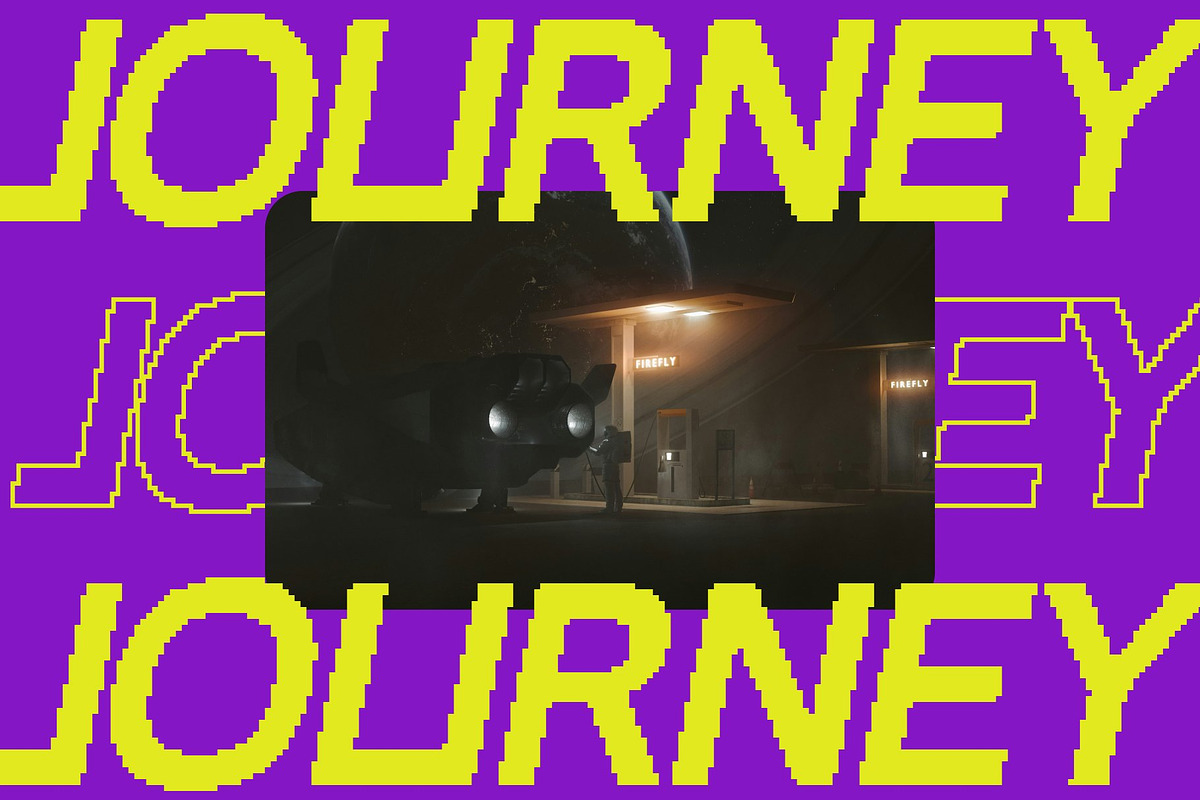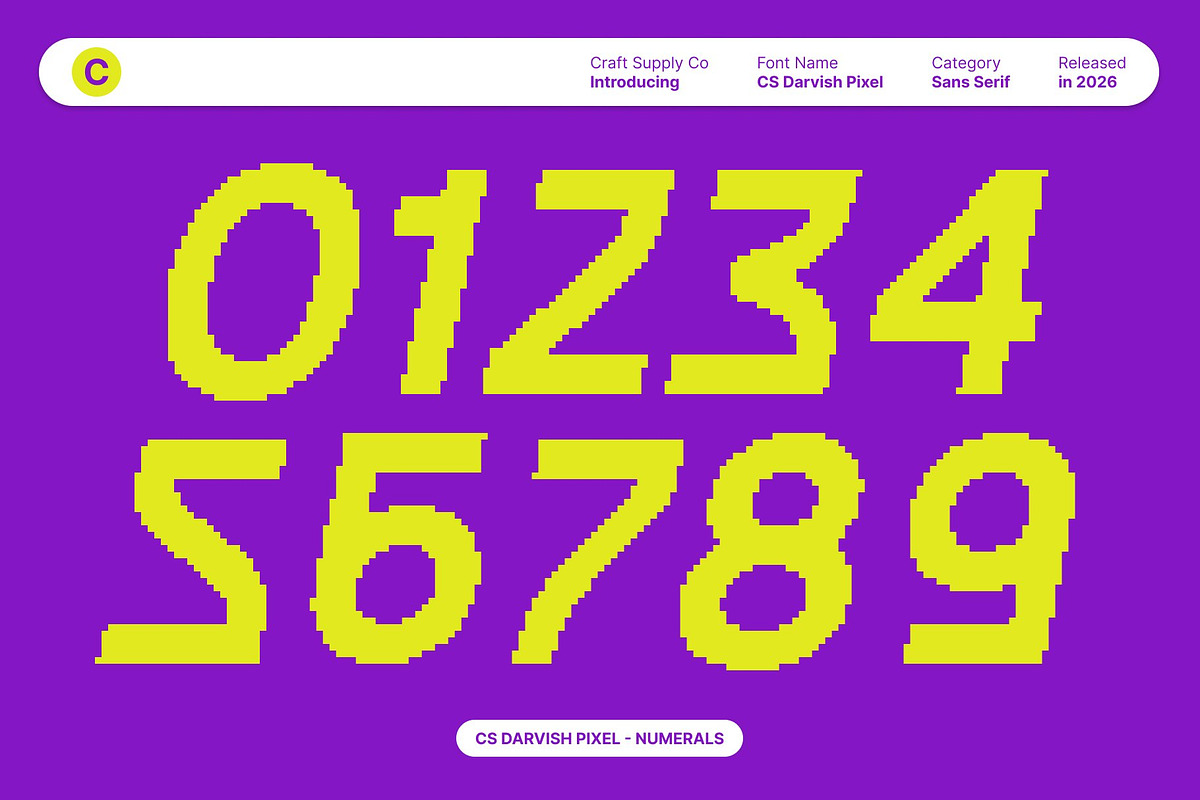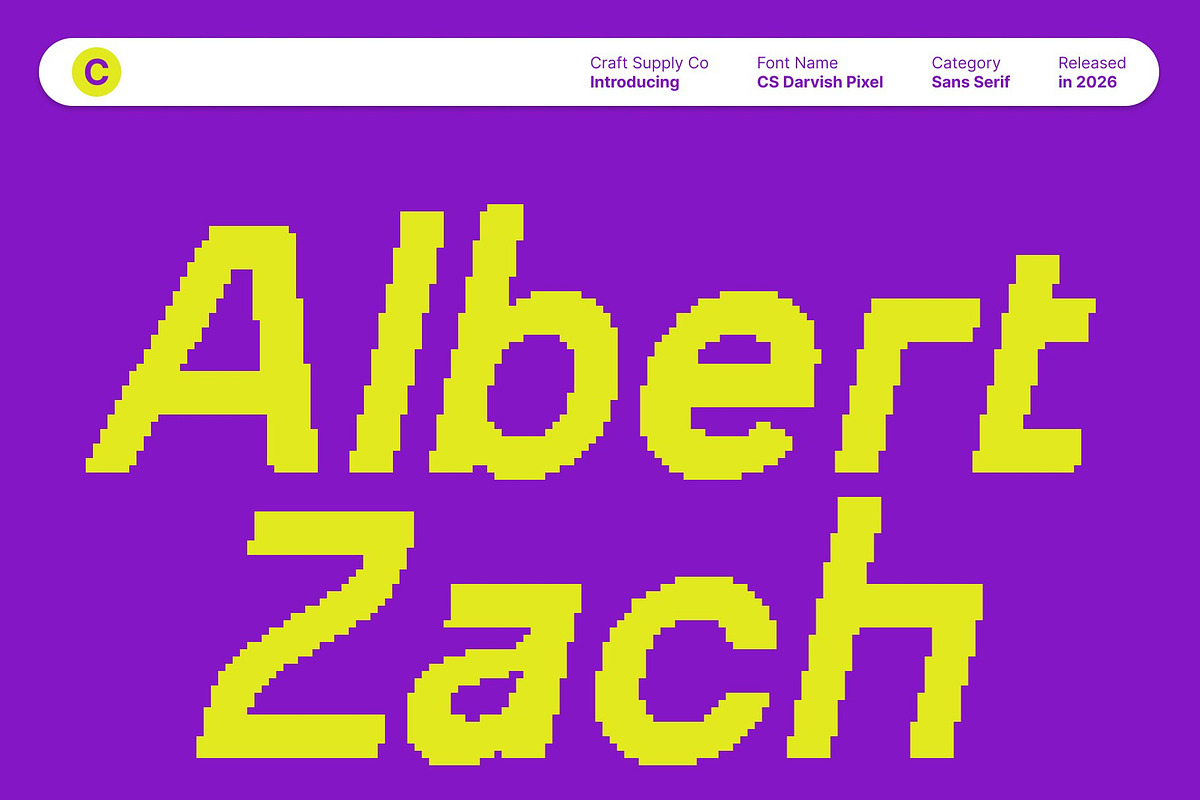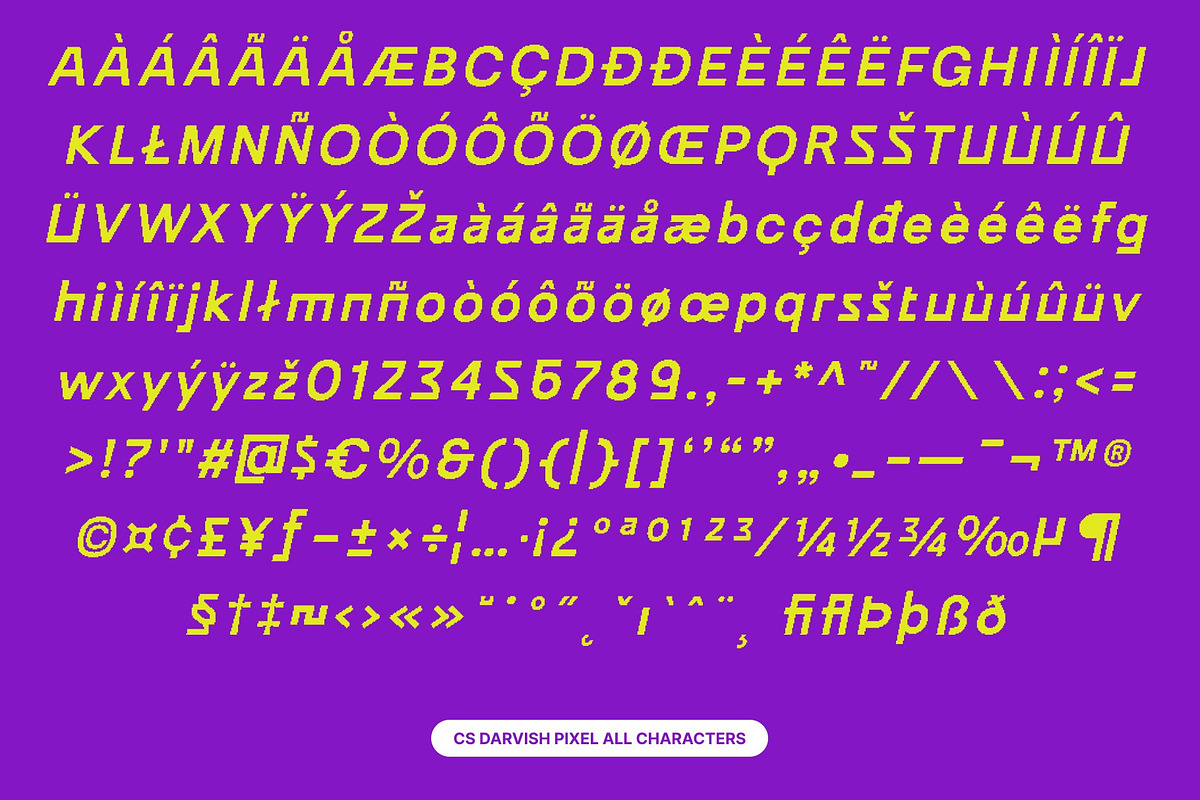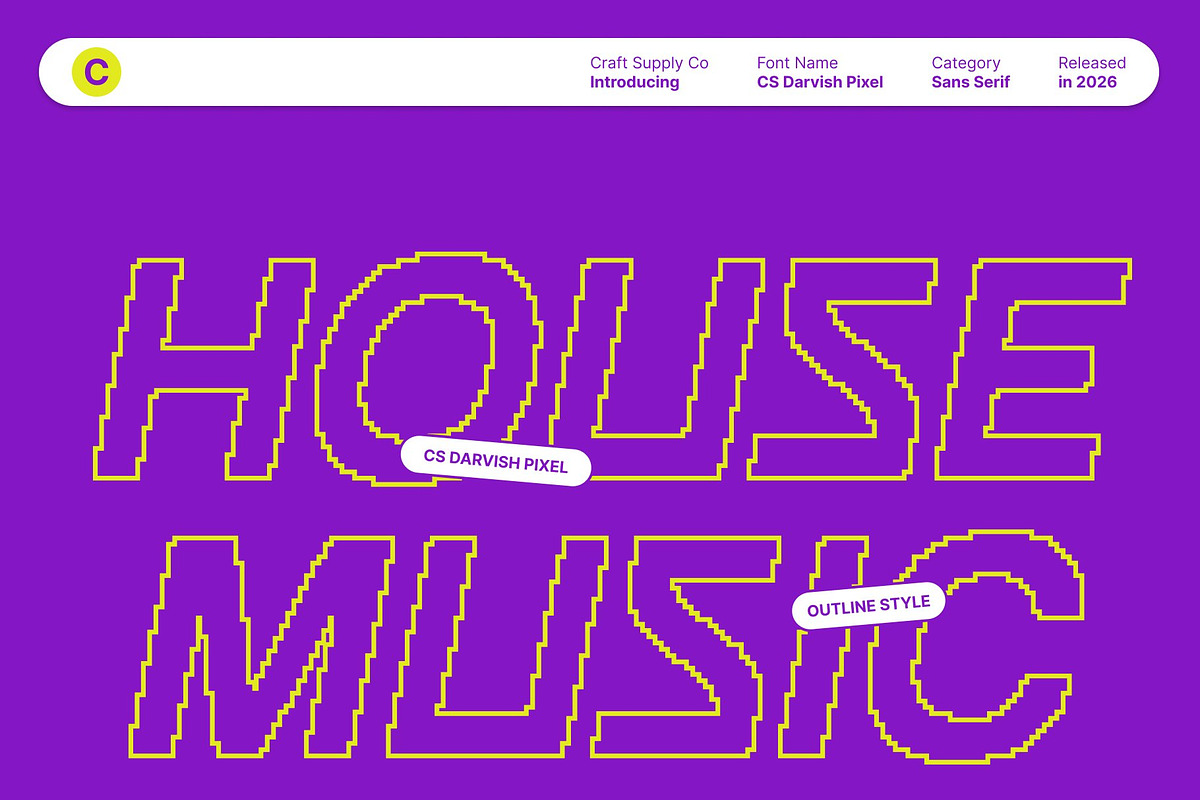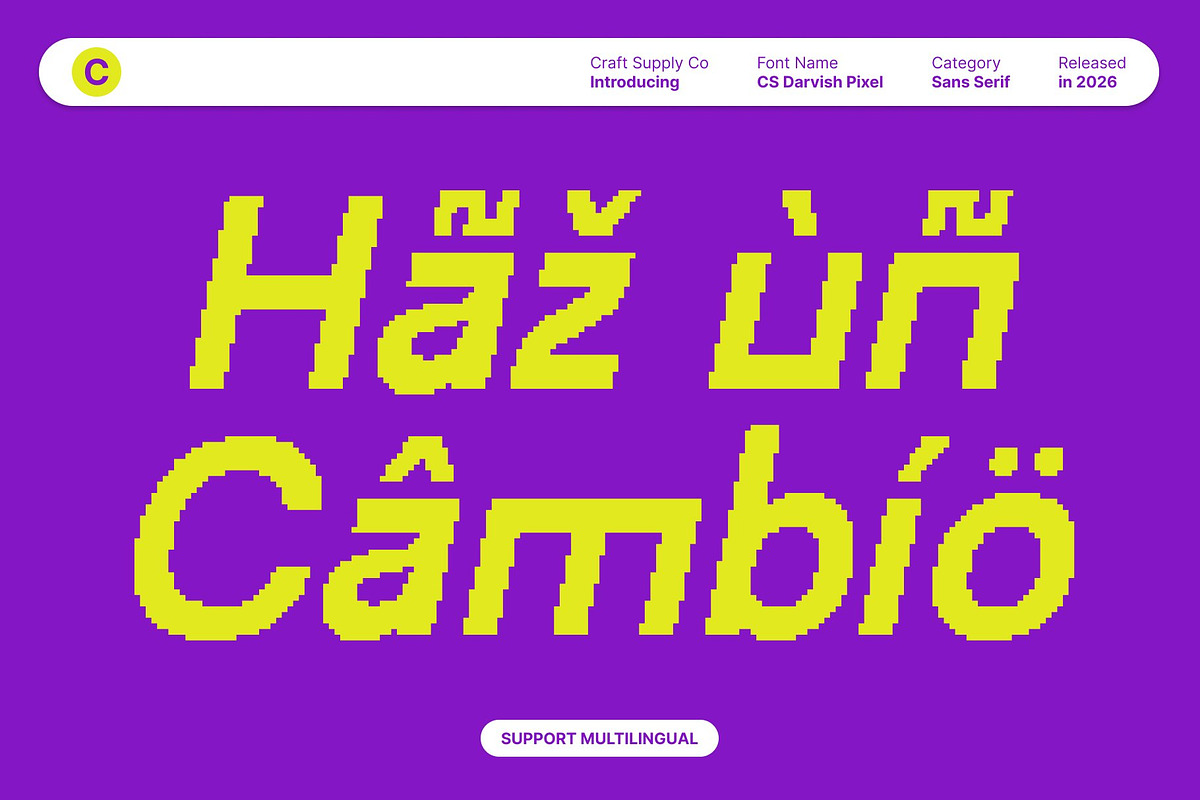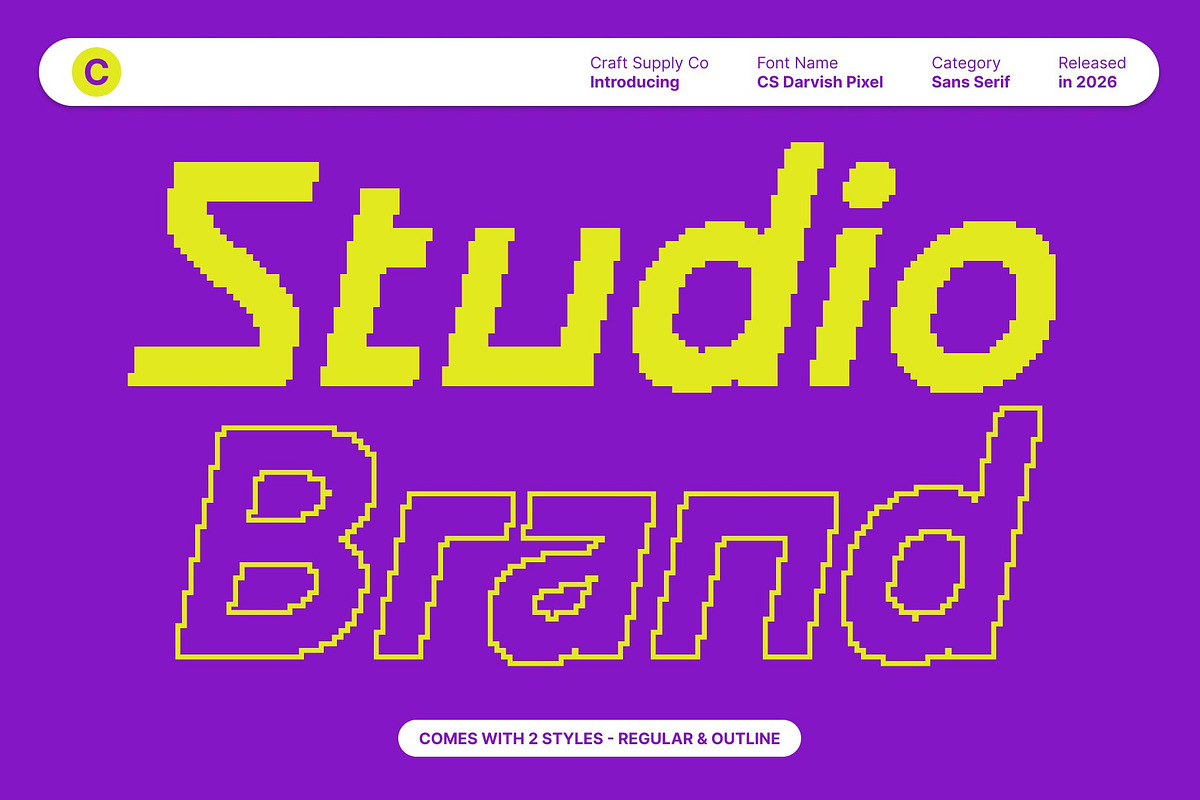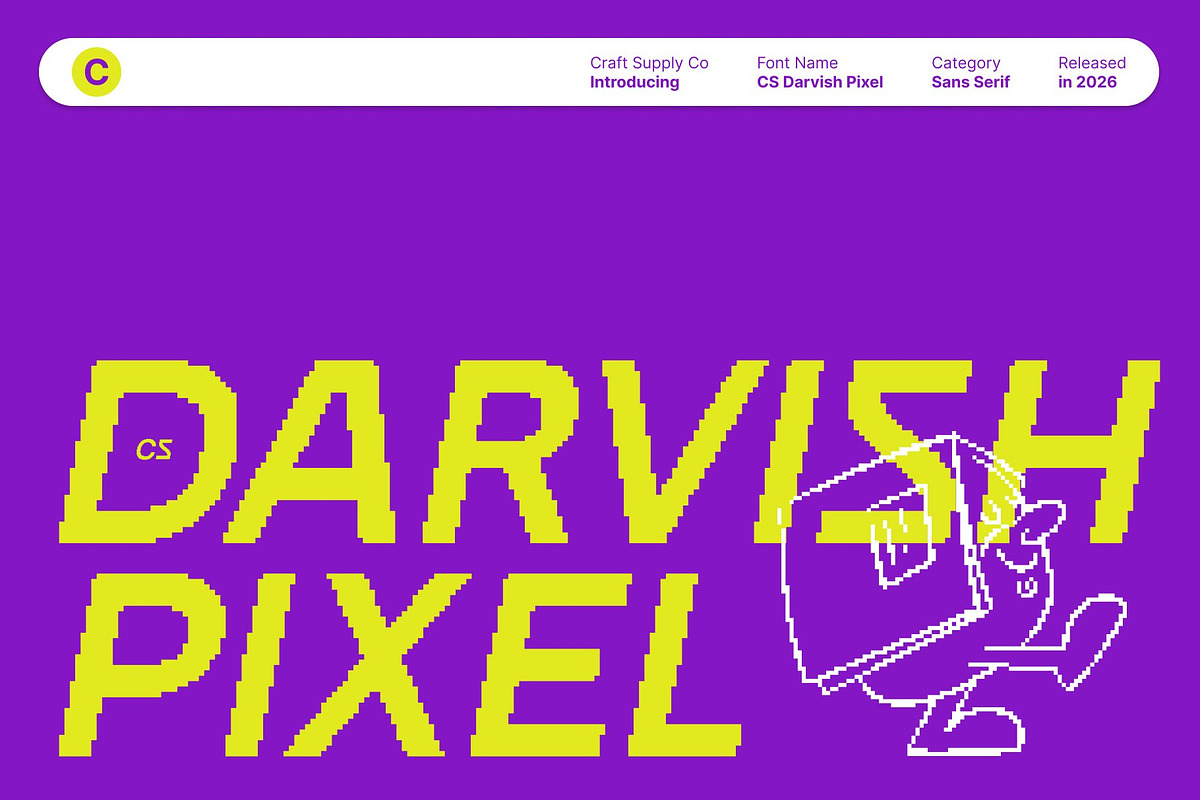
CS Darvish Pixel
CS Darvish Pixel – Where Modern Professionalism Meets Digital Precision
Modern Sans Serif with Pixel Refinement This is a modern sans serif typeface designed for professional and corporate environments, now enhanced with subtle pixel detailing. Its clean, tidy structure is combined with a digital-inspired texture that recalls early screen typography while maintaining a contemporary, polished appearance. This balance makes it suitable for modern brands that value clarity with a distinctive digital edge.
Optimized Readability Across Media Built with consistent proportions and carefully structured letterforms, this font ensures excellent readability in both digital and print applications. The pixel construction remains precise and controlled, reinforcing clarity without compromising legibility. This makes the font reliable for official documents, presentations, interfaces, and information-heavy layouts.
Versatile for Corporate and Digital Applications This font adapts seamlessly to a wide range of professional uses, including corporate branding, editorial content, websites, dashboards, and promotional materials. Its modern sans serif form communicates professionalism, while the pixel detail adds subtle character that sets it apart from conventional corporate fonts.
Ideal for Contemporary Corporate Identity Perfect for brands seeking a clean, modern, and tech-aware aesthetic, this font blends functionality with style. It delivers a professional tone while introducing a refined digital personality, ensuring your visual communication feels modern, confident, and visually engaging.